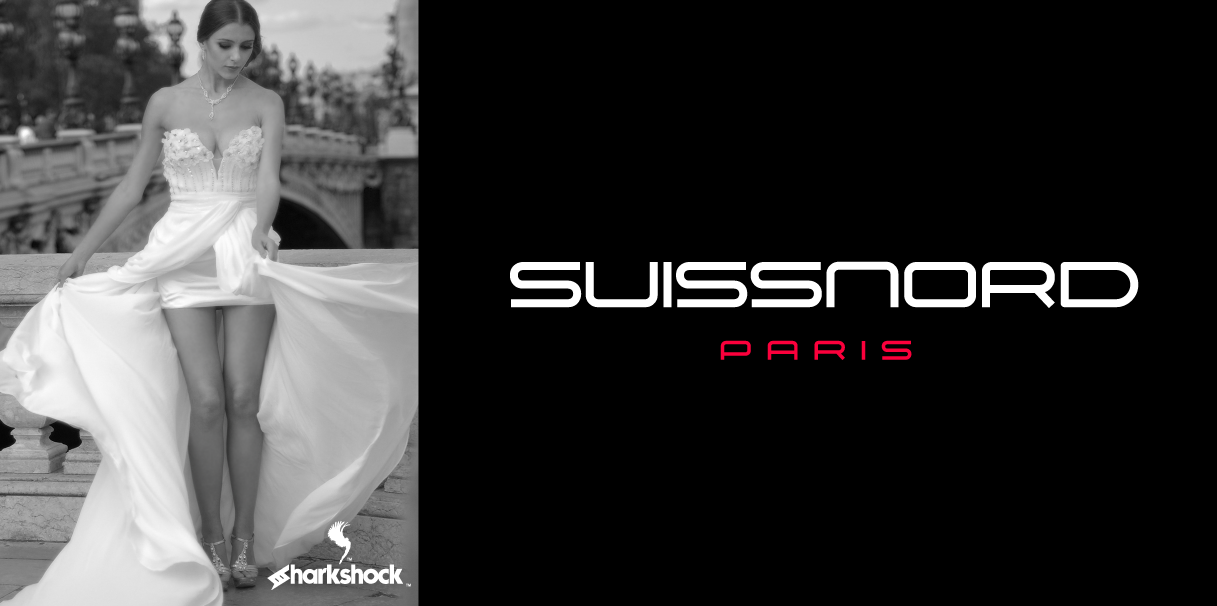
OTF and TTF: Suissnord Dennis Ludlow 2016 all rights reserved by Sharkshock dennis@sharkshock.net Suissnord is a simple yet elegant display font with curvaceous styling. The lines are sleek and slender keeping the same weight throughout the entire alphabet. While the majority of characters are uppercase, you'll find lowercase versions of others like a, e, and n. Basic Latin, extended latin, European accents, diacritics, and basic punctuation are included. Use Suissnord for a magazine, fashion ad, or company logo. This typeface can compliment a logo designed with Vonique 92 for a look that will turn heads. This font like my others are free for personal use only as long as this readme file stays intact. For commercial use please contact me at dennis@sharkshock.net to discuss an end user license agreement. You can also visit www.sharkshock.net/license for more info. I also design custom fonts for businesses, logos, and many other things. If you'd like to leave me a PayPal donation you can use my email address above. Your generosity will be most appreciated! visit www.sharkshock.net for more and take a bite out of BORING design! tags: sans, sans serif, model, magazine, display, font, typeface, sports, illustration, Paris, France, project, rounded, straight, geo, san, publishing, logo, company, Sharkshock, Europe, diacritics, Polish, Czech, German, French, accents, Spanish, Latin, kerning, fashion, industry, perfume, ad More... |